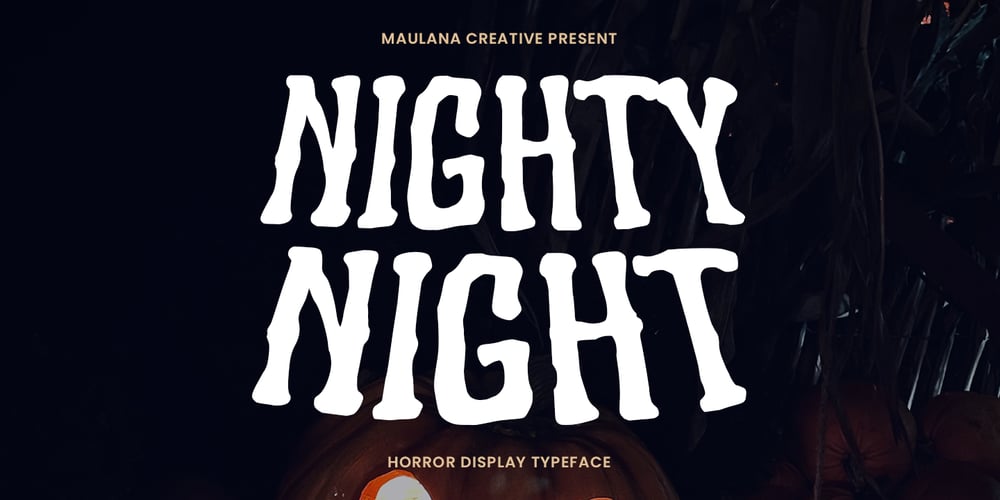
Nighty Night Font Family was designed by Gilang Maulana and published by Maulana Creative. Nighty Night contains 1 styles and family package options. Nighty Night horror display font. Bold stroke, fun character with a bit of ligatures and alternates. To give you an extra creative work. Nighty Night font support multilingual more than 100+ language. This font is good for logo design, Social media, Movie Titles, Books Titles, a short text even a long text letter and good for your secondary text font with script or serif. Make a stunning work with Nighty Night font. Cheers, Maulana Creative